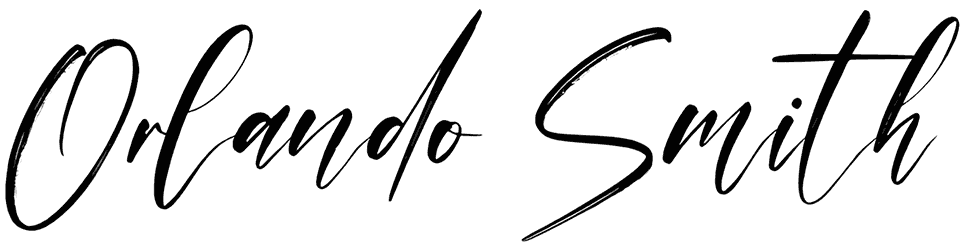
Orlando Smith Font
No one can look at this romantic and aesthetic face and not fall in love with it. Orlando Smith is a chic calligraphy font that has delicate letters and would harmonize well with any design and theme. With A-Z characters, you can set this signature font on many projects like product logos, wedding designs, tattoos, or others, and see how ravishing it would be.